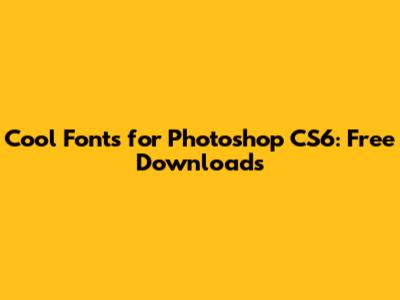
- Google Fonts: This is a goldmine of free fonts that are super easy to use. The best part? They're all open source, so you can use them for commercial projects without worrying about licensing issues. Plus, Google Fonts integrates seamlessly with many design tools, making it a breeze to incorporate them into your workflow.
- Adobe Fonts (formerly Typekit): If you're an Adobe Creative Cloud subscriber, you already have access to Adobe Fonts. This library is packed with thousands of fonts, and they're all high-quality and fully licensed for commercial use. The integration with Photoshop CS6 is seamless, so you can start using them right away.
- DaFont: DaFont is a classic choice for finding a wide variety of fonts, from quirky and playful to elegant and sophisticated. Many of the fonts are free for personal use, but make sure to check the licensing before using them for commercial projects.
- FontSpace: Similar to DaFont, FontSpace offers a huge selection of free fonts. The website is easy to navigate, and you can filter fonts by category, style, and more. Again, be sure to double-check the licensing before using any fonts in your commercial work.
- MyFonts: If you're looking for premium fonts, MyFonts is the place to go. They have a vast collection of fonts from independent foundries, and you're sure to find something unique and special. Keep an eye out for sales and discounts to snag a great deal.
- Consider Your Project's Purpose: What are you trying to communicate with your design? A serious, professional project will require different fonts than a fun, playful one. Think about the overall tone and message you want to convey, and choose fonts that align with that.
- Think About Legibility: While it's tempting to choose super decorative fonts, make sure your text is still easy to read. Legibility is key, especially for body text. Choose fonts that are clear and easy on the eyes, even at smaller sizes.
- Limit the Number of Fonts: Using too many different fonts can make your design look cluttered and unprofessional. Stick to a maximum of two or three fonts per project. A good rule of thumb is to use one font for headings and another for body text.
- Pair Fonts Wisely: When using multiple fonts, make sure they complement each other. A good way to do this is to pair a serif font (like Times New Roman or Georgia) with a sans-serif font (like Arial or Helvetica). This creates a visual contrast that can make your design more interesting.
- Test Your Fonts: Before finalizing your design, test your fonts on different devices and screen sizes to make sure they look good. What looks great on your computer screen might not look as good on a mobile device. It's always a good idea to get a second opinion, too.
- Don't Be Afraid to Experiment: The best way to find the perfect fonts for your project is to experiment and try different combinations. Play around with different sizes, weights, and styles until you find something that you love. And don't be afraid to break the rules and try something unexpected.
Hey guys! Are you looking to spice up your designs in Photoshop CS6? One of the easiest ways to do that is by using cool and unique fonts. Finding the perfect font can be a game-changer, whether you’re working on a poster, a logo, or just some fun graphics. But let's be real, sifting through the endless options online can feel like a never-ending quest. That's why I've put together this guide to help you find and download awesome fonts that will work perfectly with your Photoshop CS6. Let's dive in!